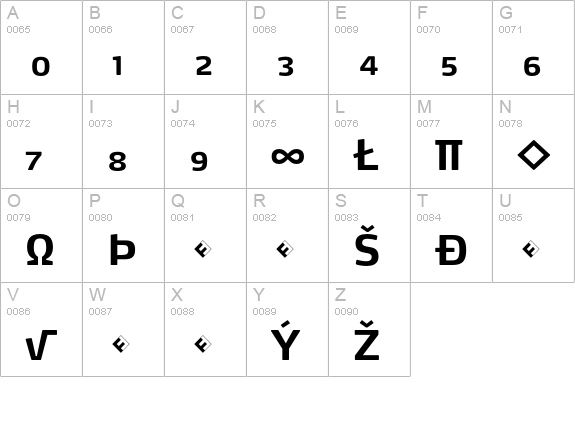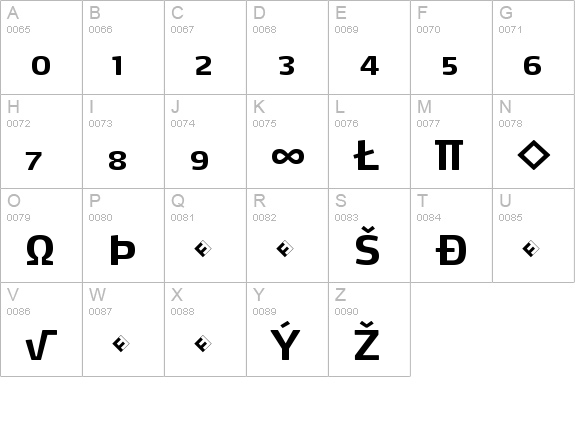
Max-BoldExpert Font Details
Introducing Max-BoldExpert font, a striking and impactful typeface designed to make a bold statement in any design project. This versatile font exudes confidence and sophistication, perfect for headlines, titles, and branding materials. With its strong and commanding presence, Max-BoldExpert font demands attention and leaves a lasting impression on viewers. What sets Max-BoldExpert font apart is its unique blend of boldness and expertly crafted details, making it a standout choice for projects that require a touch of creativity and flair. Whether you're designing a poster, logo, or website, this font is sure to elevate your work to the next level. Best of all, Max-BoldExpert font is available for free download at FontsMarket.com, allowing you to access this high-quality typeface without any cost. Don't miss out on the opportunity to add Max-BoldExpert font to your font library and enhance your design projects with its bold and expertly crafted style.